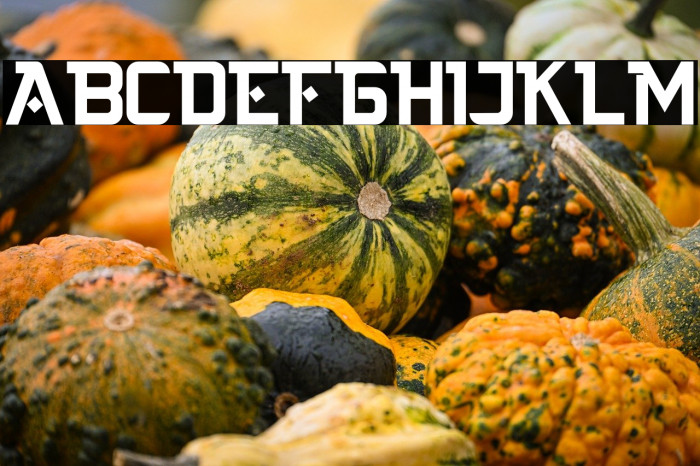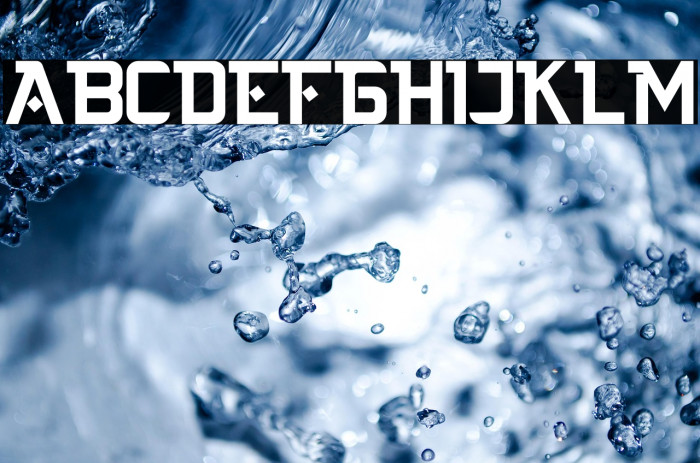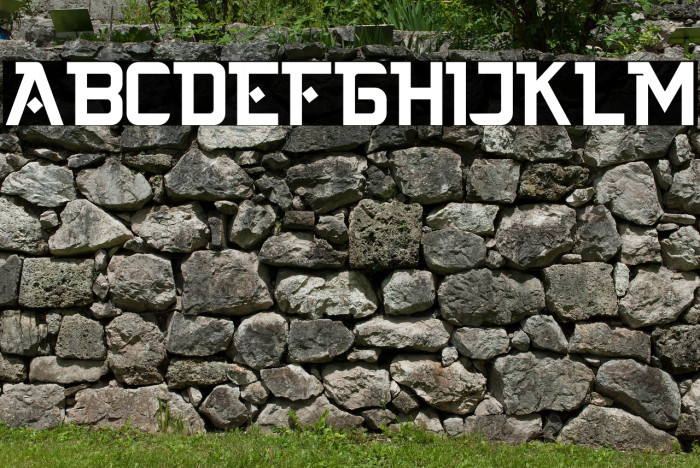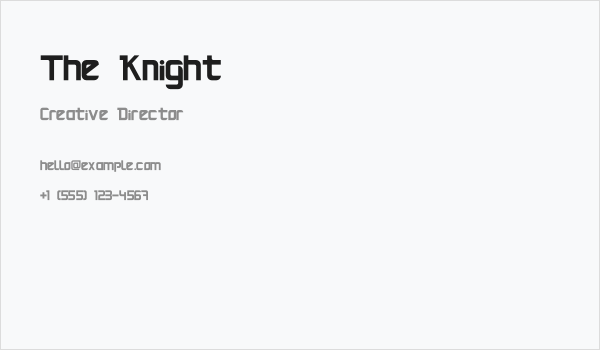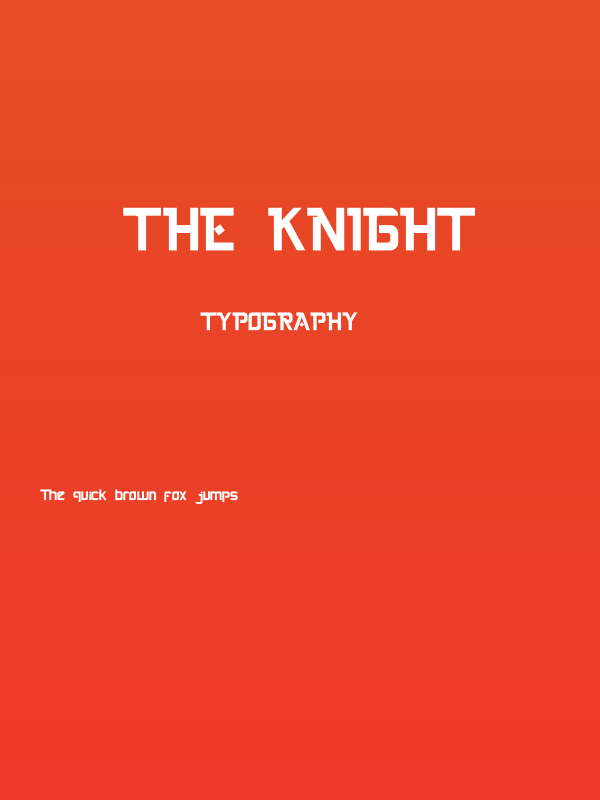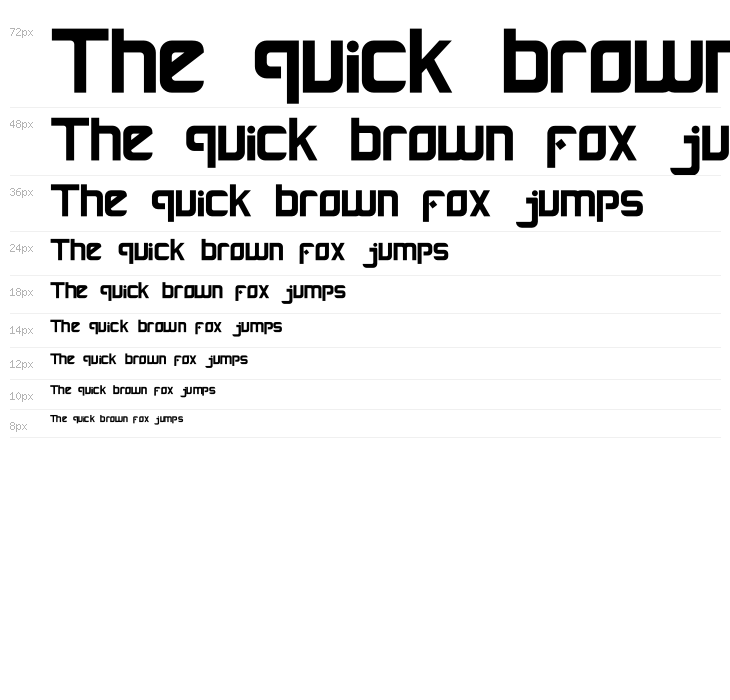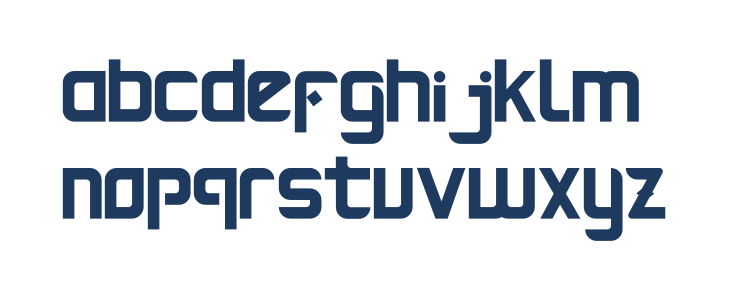
The Knight Font
The Knight Description
This font features a bold, geometric design with a futuristic and angular aesthetic. The characters are constructed with sharp edges and distinct cutouts, giving it a unique and modern appearance. The uppercase letters are particularly striking, with some incorporating diagonal cuts that add to the dynamic feel. The lowercase letters maintain a consistent style, ensuring readability while preserving the font's distinctive look. Numbers and special characters are designed to match the overall theme, making this font versatile for various applications. Its boldness and geometric nature make it ideal for attention-grabbing designs.